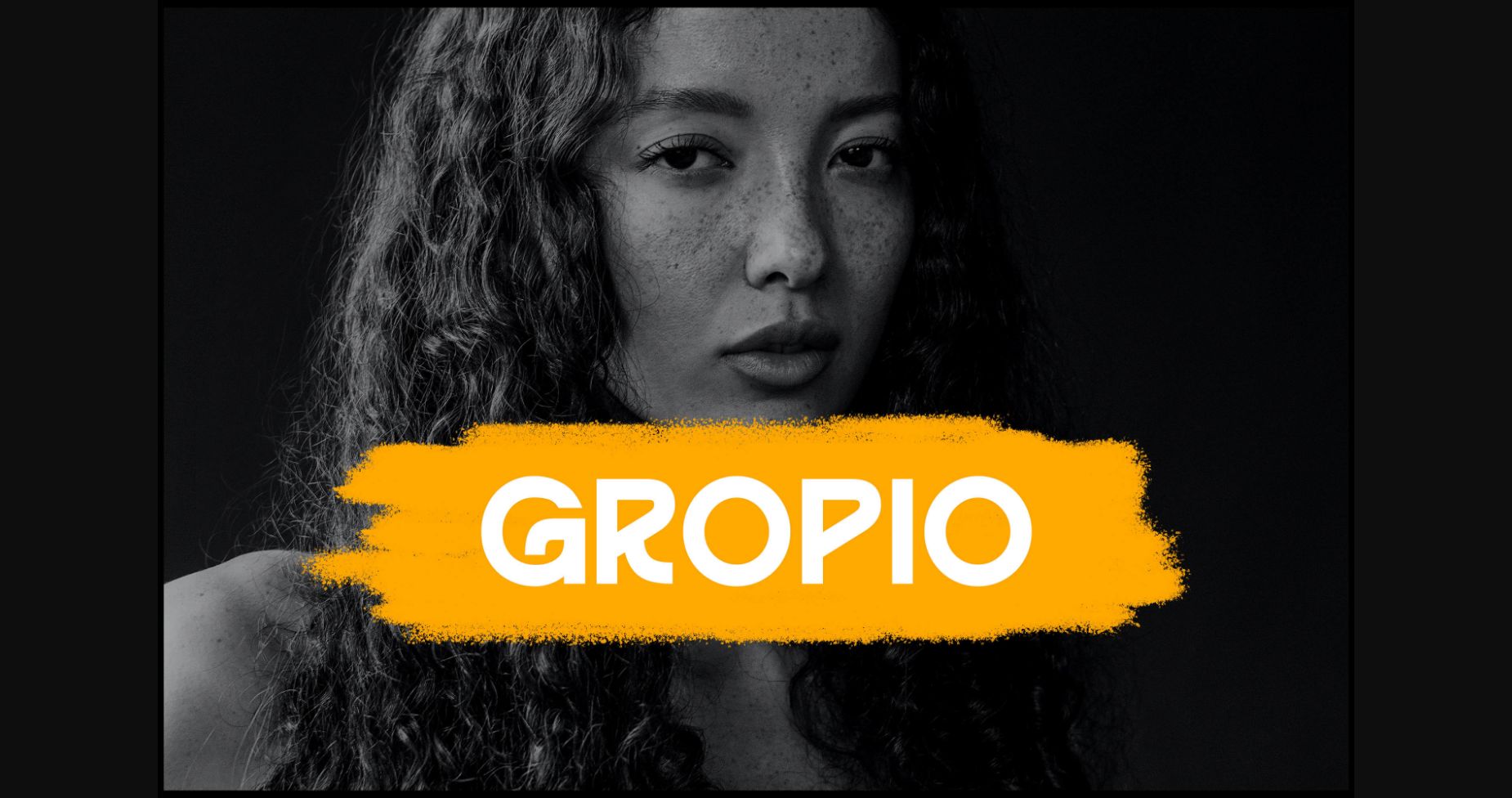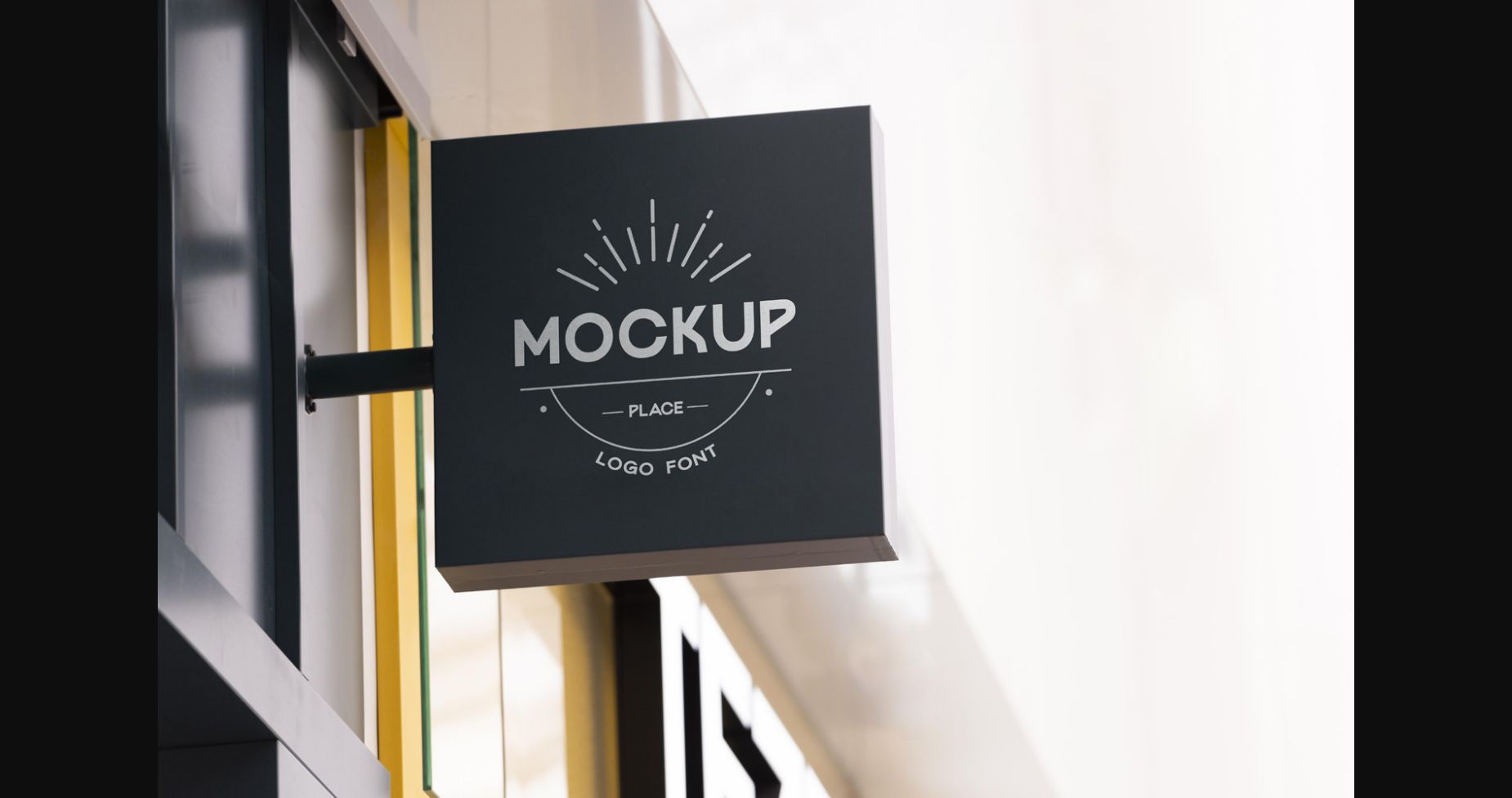
About Gropio Font
Gropio is a cool, adaptable and neat sans serif font. It is perfect for product packaging, branding project, magazine covers, social media, wedding, or just used to express words above the background.